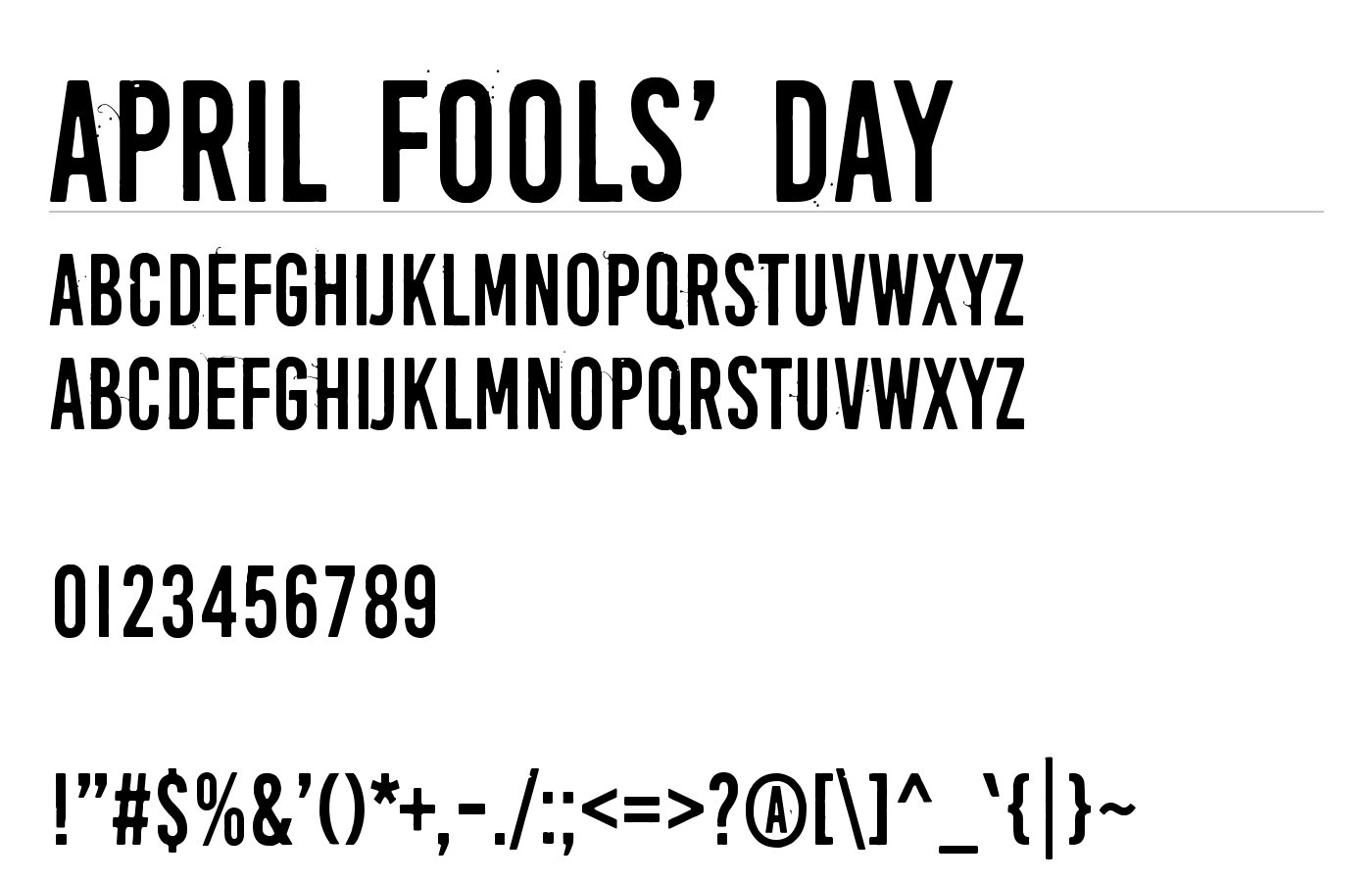
April Fools' Day Font is a tall, condensed sans serif typeface with a bold, vintage feel emphasized by subtle distressed textures. Its uniform stroke weight, narrow proportions, and slightly quirky letterforms convey a playful yet strong personality, making it ideal for eye-catching headlines, posters, and branding that seek a retro or handcrafted touch. This font works best where a distinctive, spirited style is needed to grab attention without sacrificing readability.
April Fools' Day Font